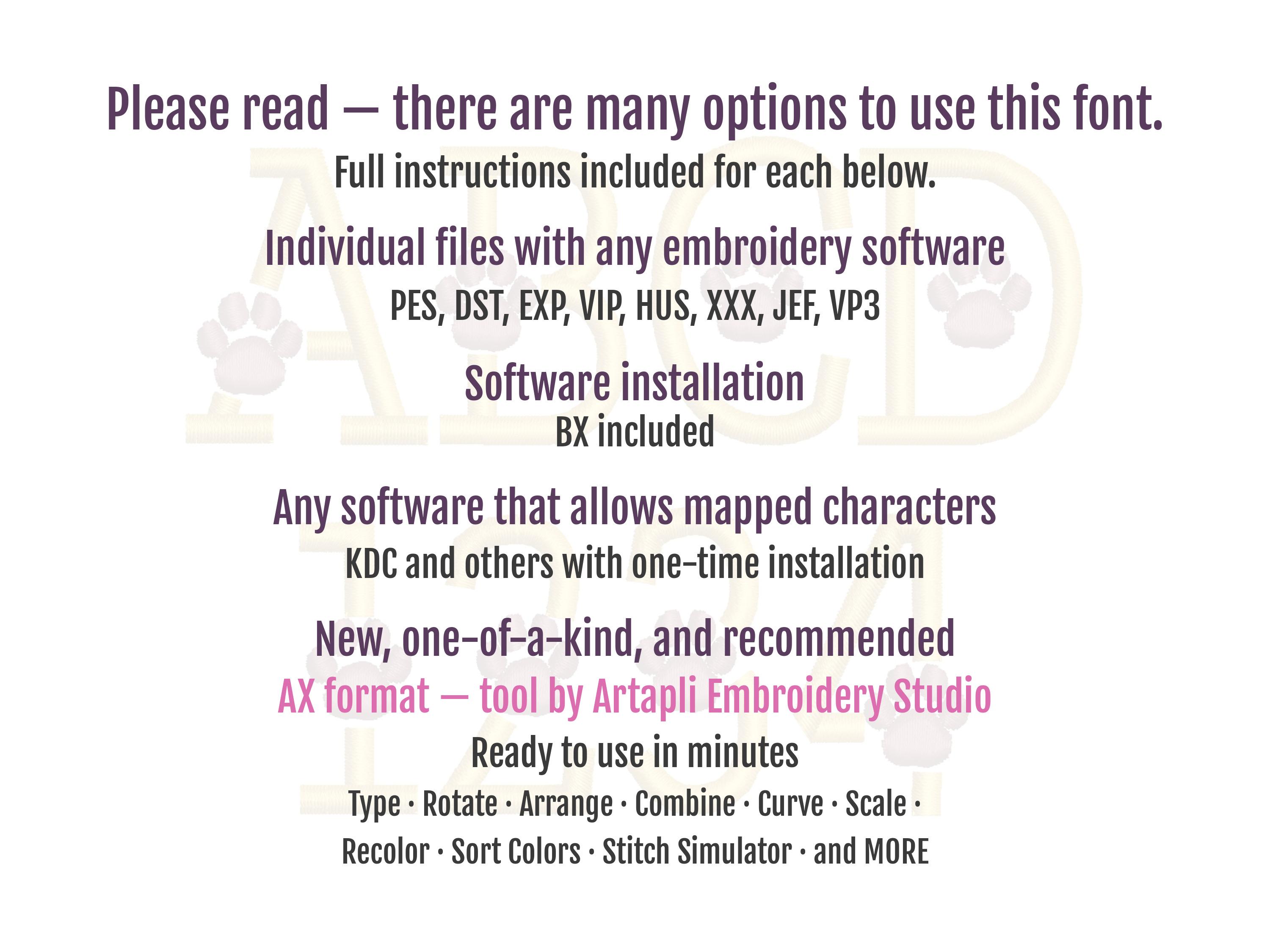
Paw print FONT satin stitch Block Font with Paw machine embroidery designs in assorted sizes monogram letters Cat Dog kids name BX included
Whole alphabet: uppercase and lowercase letters, numbers, and punctuation.
Super adorable font. I've been looking for a paw print font for a while and this was definitely the best choice.